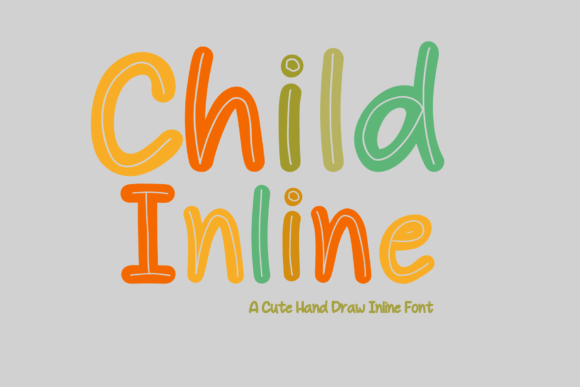
Introduction to Child Inline Font
Child Inline is a cute and playful display font.
It will add elegance and class to any of your design projects This font can be used to write various kinds of products according to the aspect of each need, projects, logos, wedding designs, social media posts, advertisements, product packaging, product designs, label, photography, watermark, invitation, stationery, and any other projects.
Key Features of Child Inline Font